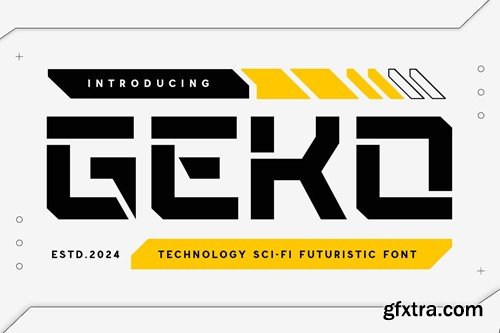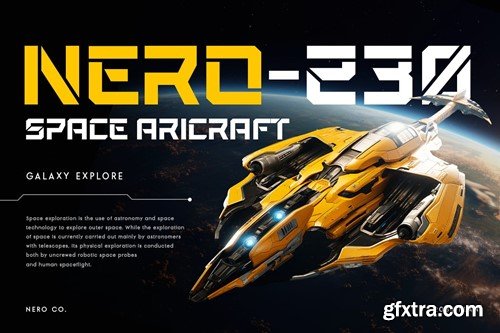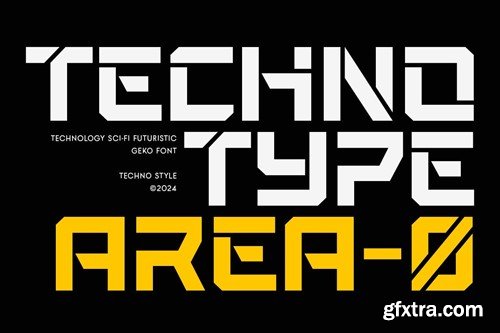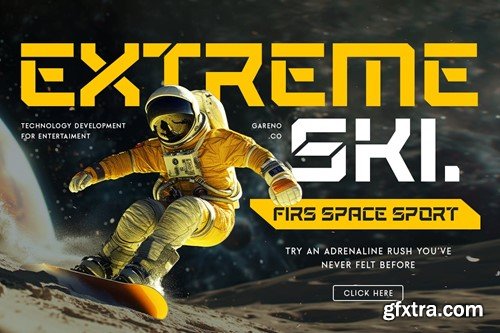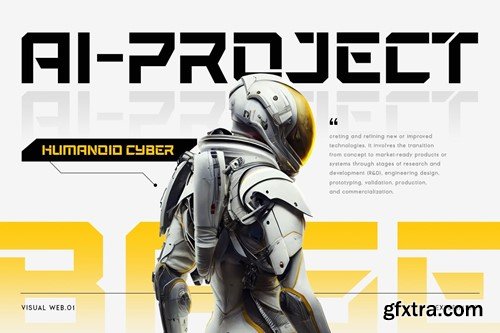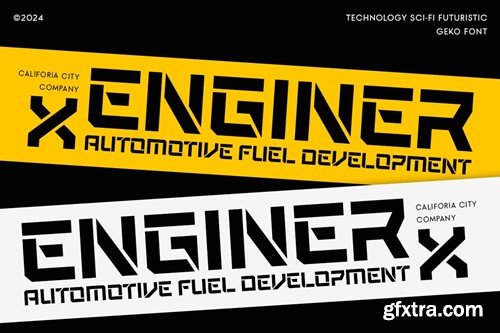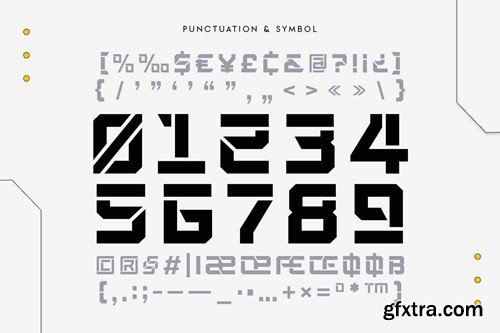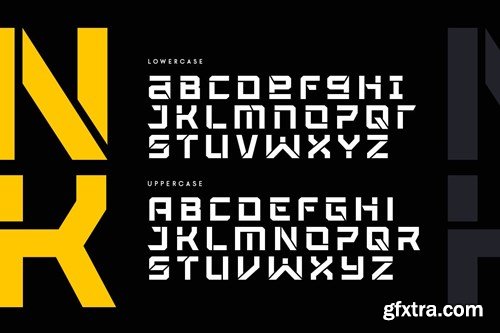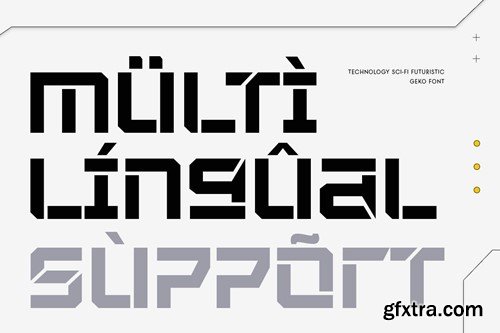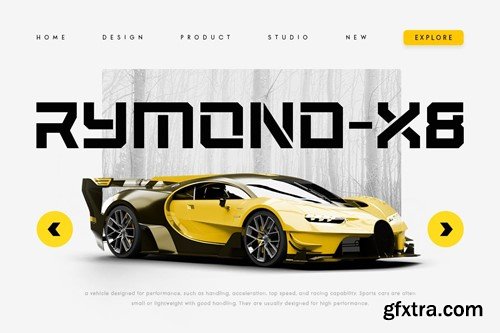
Introducing GEKO, a modern sci-fi font crafted for futuristic and innovative designs. Perfect for projects that need a touch of the future, GEKO combines sleek lines with a cutting-edge aesthetic to bring your ideas to life. The Story Behind GEKO: GEKO was inspired by the limitless possibilities of the future. Imagine a world where technology and design merge seamlessly, creating environments that are both functional and visually stunning. This font captures that vision, offering a sleek and modern look that is perfect for any project aiming to make a bold statement. GEKO is ideal for designers who want to push the boundaries and explore new frontiers in their work. GEKO Font Features: Perfect For: With GEKO, your designs will stand out as innovative and forward-thinking. Whether you're working on tech branding, futuristic designs, or professional materials, GEKO provides the perfect blend of modern aesthetics and sci-fi appeal. Elevate your design projects with GEKO and bring a touch of the future to your work.